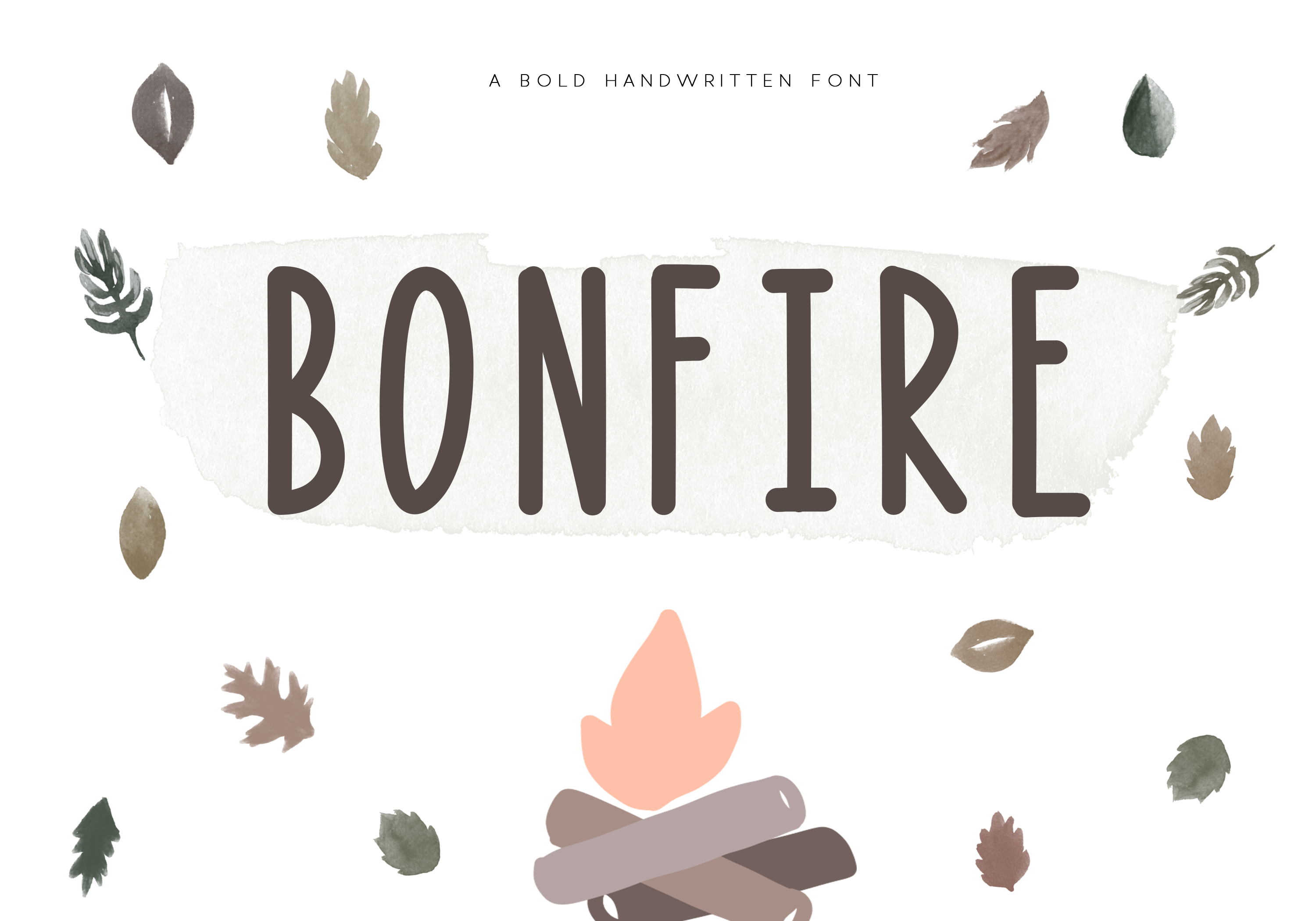
Bonfire - A Bold Handwritten Font
Bonfire is a bold and tall handwritten font. This font is perfect for quotes, headings, blogs, logos, invitations and more! It is especially useful for children's designs, tee shirts, mugs and posters!
This font does include accent characters.